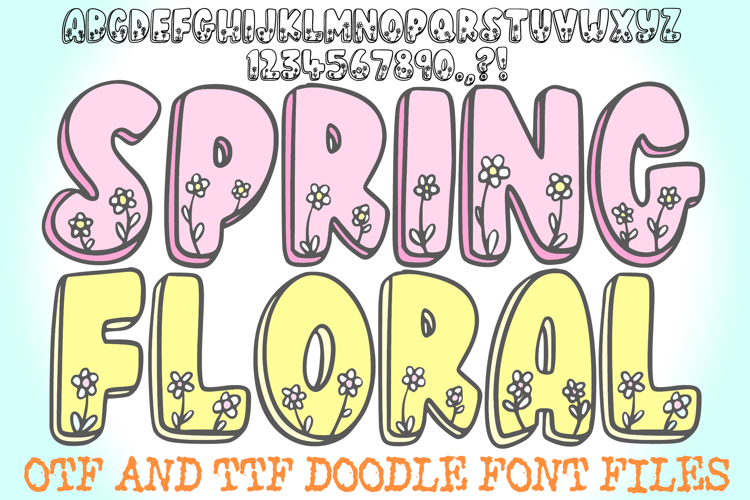
Spring Floral Doodle Font Easter Cute Typeface Letters
Celebrate the beauty of nature with the Spring Floral Doodle Font! This whimsical display typeface is bursting with seasonal charm, featuring bold bubble-style characters intricately filled with hand-drawn floral doodles and delicate leaves. Its playful, garden-inspired aesthetic makes it the ultimate choice for any project that needs a touch of fresh, organic energy.
Designed with a cozy cottagecore vibe, this font is perfect for all your spring time and Easter creations. Whether you are designing festive greeting cards, garden-themed branding, or cute classroom decor, the Spring Floral Doodle Font provides a sweet, artisanal look that stands out.
Ideal For:
Easter & Spring Projects: Create beautiful egg-hunt signs, festive banners, and holiday cards.
Nursery & Kids Decor: Perfect for personalized wall art, playful name tags, and nature-themed worksheets.
Apparel & Merchandise: Design lovely T-shirts, tote bags, and floral-themed stickers.
Social Media & Branding: Add a whimsical headline to your Instagram posts, blog banners, or boutique logos.